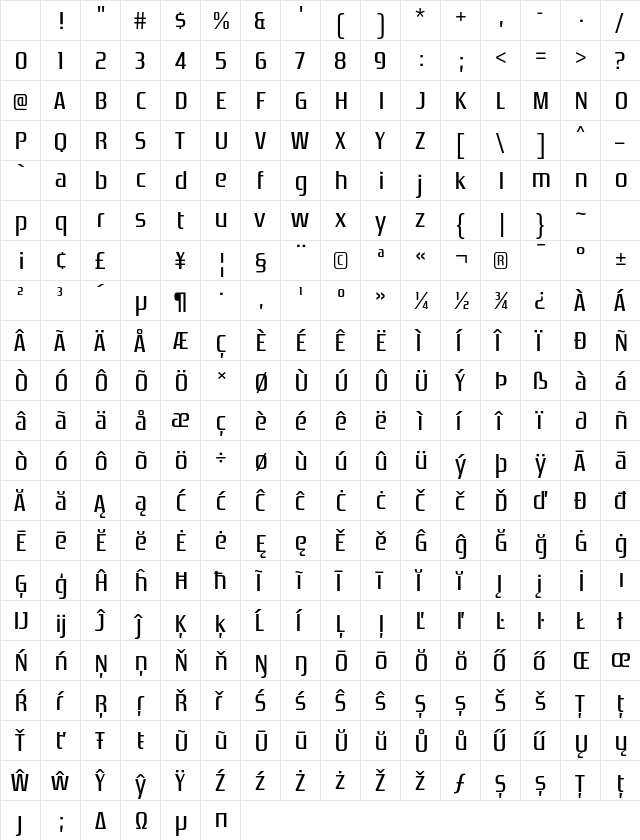
Complete Zrnic Regular glyph index. Displaying only characters natively supported by Zrnic Regular font.
Zrnic is a composed and adaptable typeface that performs quietly and consistently across a wide range of design contexts.